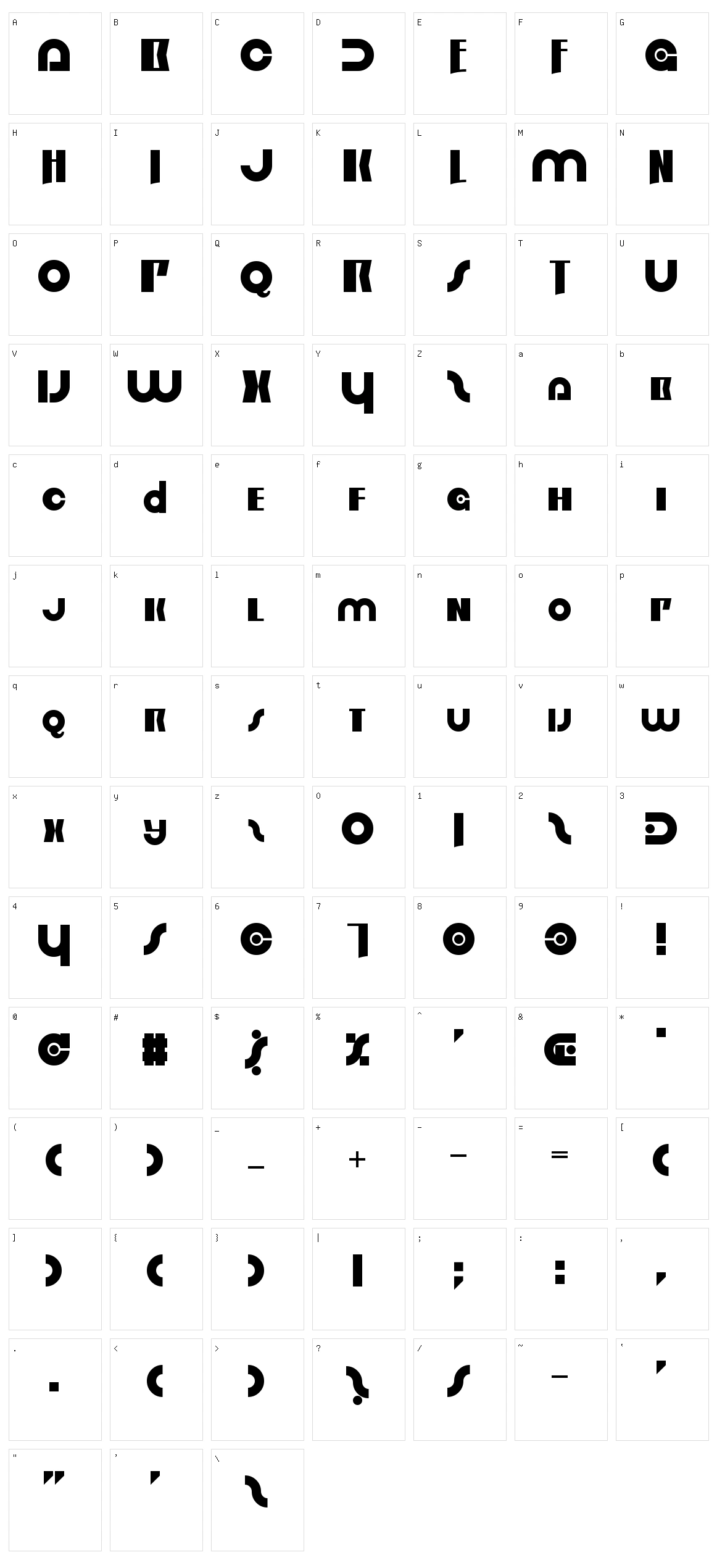
The free font Order in Chaos is carefully designed by Chequered Ink, showcasing a thoughtful balance of creativity and usability and falls under the Groovy font style. When you download the ZIP file, it contains only 13.4 KB of font files, making it lightweight and quick to download. Please review the license details below to understand permitted usage and distribution rights. If license information is not available, we recommend using this font for personal projects only or contacting the author directly for commercial usage permissions.